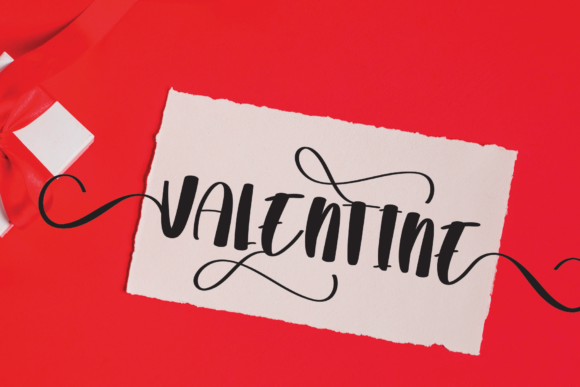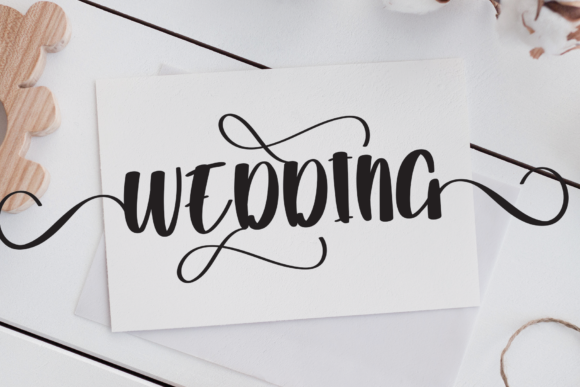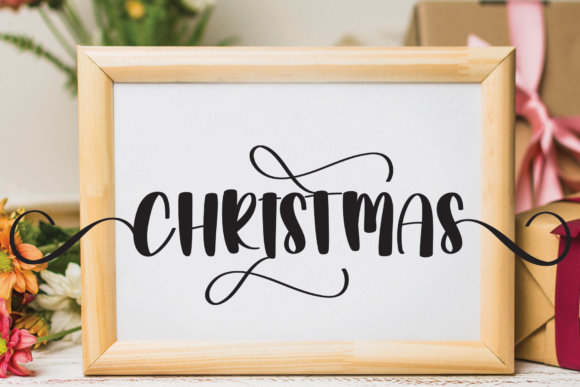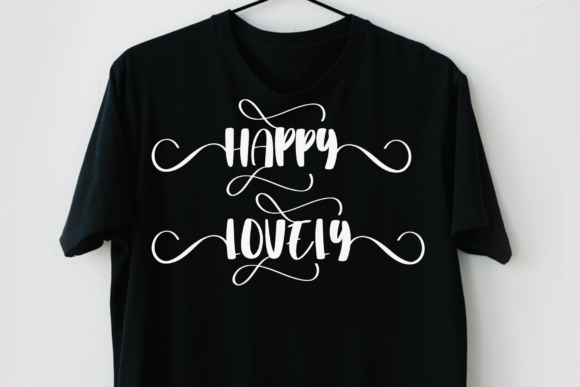
Introducing Handmade Font: Elevate Your Designs with Elegant Handwritten Style
Are you tired of using generic fonts that lack personality in your designs? Look no further than the Handmade Font, a beautiful, flowing handwritten font that adds an elegant touch to any project. With its PUA encoding, this font offers effortless access to a wide range of glyphs and swashes, making it a must-have for designers and crafters seeking to elevate their work.
The Beauty of Handmade Font
The Handmade Font is a true masterpiece, crafted with love and care to bring a touch of sophistication to your designs. Its elegant, cursive style flows smoothly across the page, making it perfect for a variety of projects, from wedding invitations and branding materials to blog posts and social media graphics.
One of the standout features of the Handmade Font is its PUA (Private Use Area) encoding. This means that you can easily access all of the font’s glyphs and swashes, allowing you to add a personal touch to your designs. Whether you’re looking to create a romantic, whimsical, or luxurious feel, the Handmade Font has got you covered.
With PUA encoding, you can unlock a world of creative possibilities, from intricate flourishes to elegant ligatures. This means that you can use the Handmade Font to create truly unique and eye-catching designs that reflect your personal style.
The Handmade Font is a versatile tool that is perfect for designers and crafters of all levels. Whether you’re a professional graphic designer or a DIY crafter, this font offers a wide range of creative possibilities.
For designers, the Handmade Font is ideal for:
For crafters, the Handmade Font is perfect for:
- Handmade cards and invitations
- DIY crafts and scrapbooking
- Custom jewelry and accessory design
- Personalized gifts and home decor
Why Choose the Handmade Font?
With so many fonts available, why choose the Handmade Font? Here are just a few reasons:
- Elegant, handwritten style: The Handmade Font offers a beautiful, flowing script that adds a touch of sophistication to any design.
- PUA encoding: With PUA encoding, you can access a wide range of glyphs and swashes, making it easy to create unique and eye-catching designs.
- Versatility: The Handmade Font is perfect for a variety of projects, from branding and advertising to DIY crafts and scrapbooking.
In conclusion, the Handmade Font is a beautiful, elegant handwritten font that is perfect for designers and crafters seeking to elevate their work. With its PUA encoding and versatile design, this font offers a wide range of creative possibilities. Whether you’re looking to create romantic, whimsical, or luxurious designs, the Handmade Font is a must-have tool in your design arsenal.